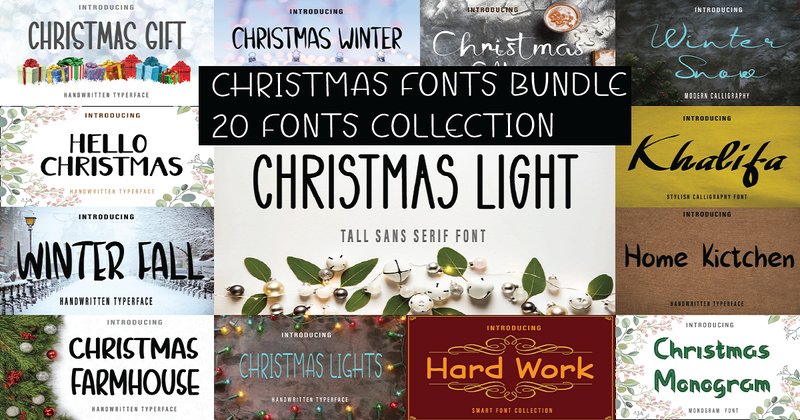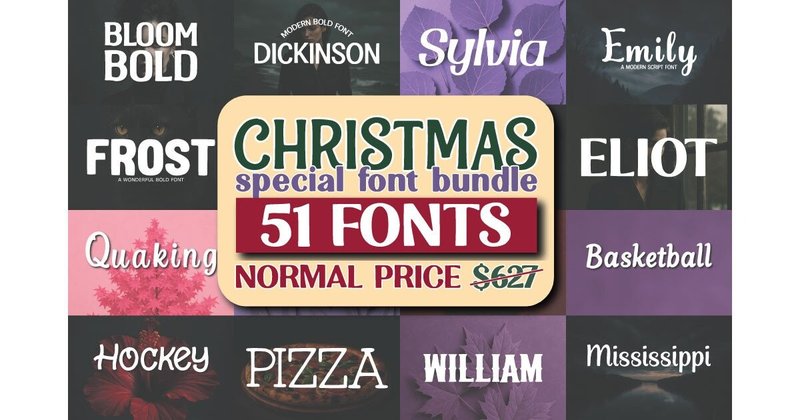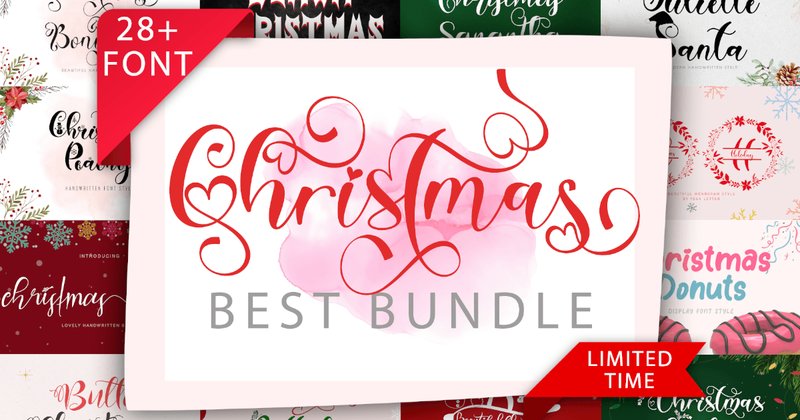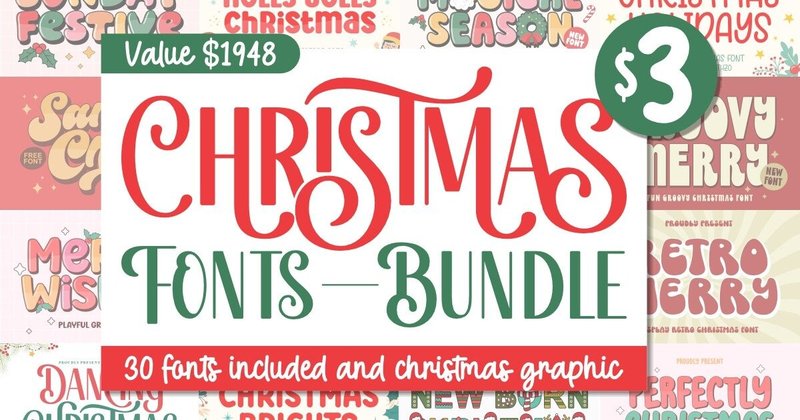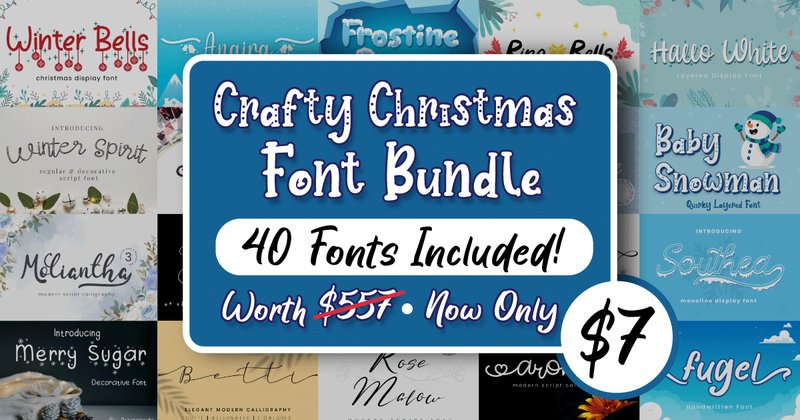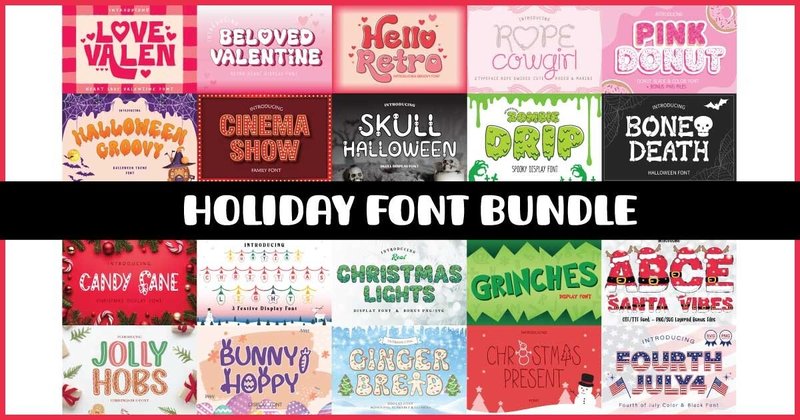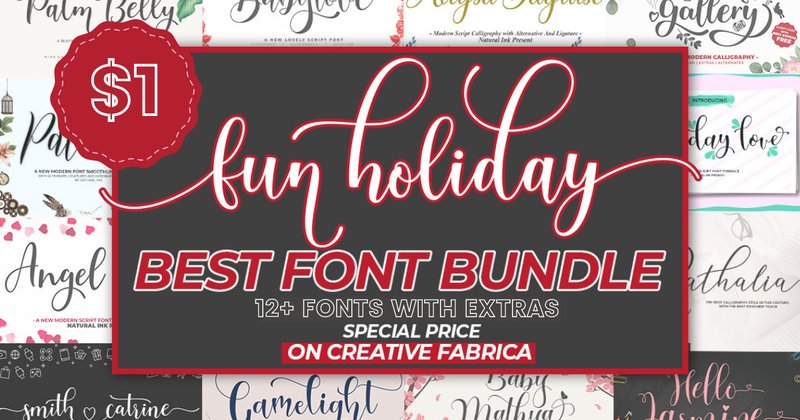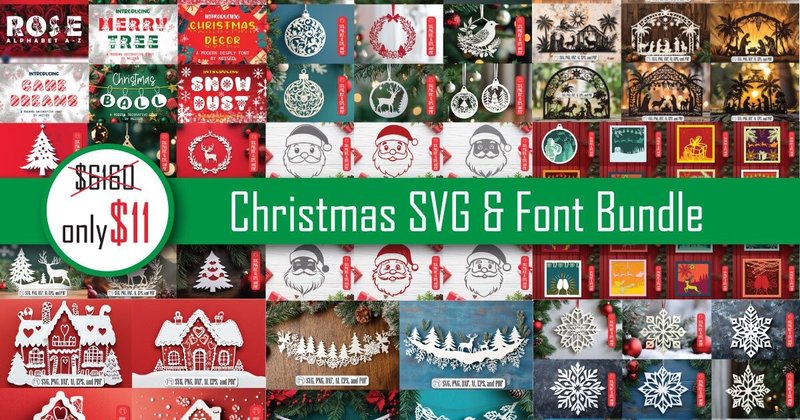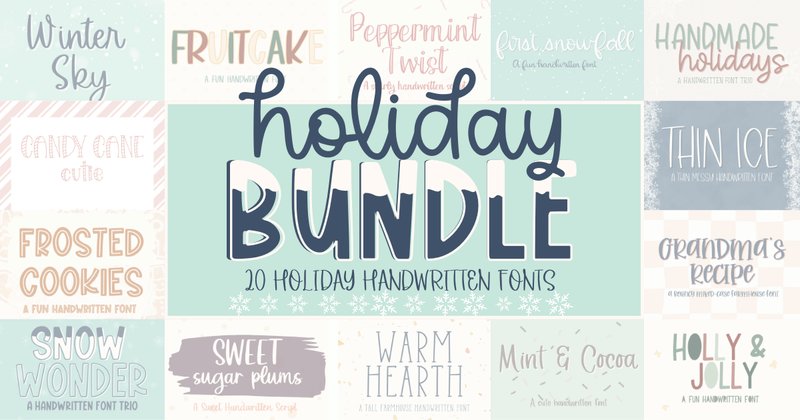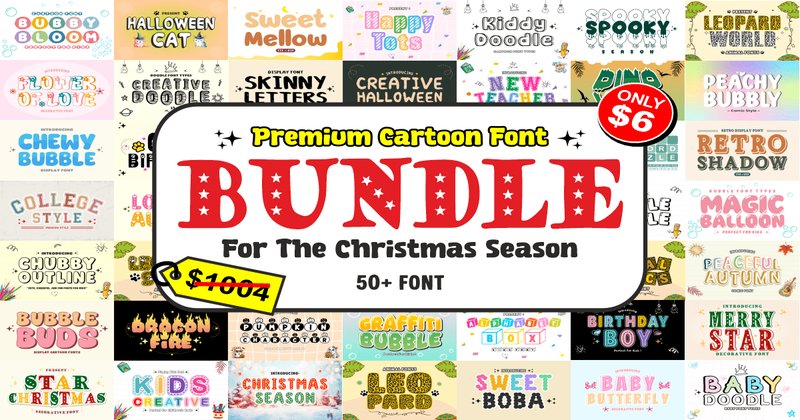
Christmas campaign due in a week and your font library has the same three overused holiday scripts everyone else is using? These 11 bundles give you 20–113 distinct typefaces — elegant calligraphy, playful cartoon, retro display, Cricut-ready SVG, and everything between. One purchase covers every brief from elegant Christmas cards to kids’ holiday shirts.
Top 11 Christmas Font Bundles — 2026 Edition
| Christmas SVG + Font (NGISED) | 113 (fonts + SVG) | Fonts + illustrated SVGs | SVG/DXF/AI/EPS included | Cricut vinyl, Silhouette, laser cutting |
| Cartoon Christmas (anamalmusyaffa) | 50+ | Cartoon, bubble, playful | Cricut + Canva + Adobe compatible | Kids’ projects, social media, fun merch |
| Christmas Special (OliviaFontCo) | 51 | Rustic → modern range | Professional-grade letterforms | Etsy sellers, seasonal branding, merch |
| Font + Graphics (Keithzo) | 30 + bonus quotes | Retro + modern + script mix | Pre-built quote graphic bonus | Designers who need fonts AND ready-made graphics |
| Christmas Best Bundle (yogaletter6) | 28+ | Scripts + monogram + display | Specialized monogram fonts included | Personalized gifts, holiday branding with monograms |
✨ Elegant & Branding — Calligraphy, Scripts, Sophisticated Holiday
1. Christmas Fonts Bundle (Farz Studio) — Elegant Scripts + Bold Display + Classic Serifs, Alternates & Ligatures, Full Holiday Design System
A complete holiday typography system covering three registers in one bundle: elegant flowing scripts for headline work, bold display fonts for impact statements, and classic serifs for supporting text. The combination means you can build a full design hierarchy — headline, subhead, body — without sourcing additional companion fonts.What’s Inside:
- Elegant scripts + bold display fonts + classic serifs — festive alternate characters, ligatures, and swashes included · professionally kerned for print and digital
- Brand designers producing a complete holiday visual identity for a client — one bundle covers the logo script, the headline display font, and the body serif without hunting for compatible matches
- Wedding and event stationery designers whose clients also request holiday event materials — the elegant script range covers both contexts without switching font libraries
- Greeting card and invitation designers who need typographic hierarchy across multiple text elements in a single design
2. Christmas Special Font Bundle (OliviaFontCo) — 51 Fonts from Rustic Charm to Clean Modern Elegance, Professional-Grade Letterforms
51 fonts spanning the full aesthetic range from cozy rustic to clean modern — the widest tonal coverage in a Christmas-only bundle. With 51 options, an Etsy seller can produce dozens of distinct product listings from a single font library without visual repetition across the catalog.What’s Inside:
- 51 Christmas fonts — whimsical scripts through sophisticated serifs and bold display · high-quality professional letterforms for digital and print
- Etsy sellers running a high-volume holiday shop who need enough font variety to differentiate products across 20+ listings without repeating the same typeface
- Small business owners producing their own seasonal marketing — social media, email headers, product labels, signage — who want a single purchase covering the full campaign
- POD designers who build multiple Christmas design variations per listing and need visual variety between color/style variants
3. Christmas Best Bundle (yogaletter6) — 28+ Fonts Including Calligraphy Scripts, Monogram Fonts & Display, Holiday Branding System
28+ fonts including a dedicated set of Christmas-specific monogram fonts alongside calligraphy scripts and display faces — the monogram inclusion is the unique differentiator. If your holiday projects include personalized gifts with initials alongside general Christmas designs, this covers both from one bundle.What’s Inside:
- 28+ holiday fonts — calligraphy scripts (e.g., “Christmas Bonitha”) + monogram fonts + playful display · cohesive festive theme throughout
- Personalized gift designers who produce both Christmas-themed products and initial/monogram products for the same holiday season — buying one bundle instead of separate Christmas and monogram font packs